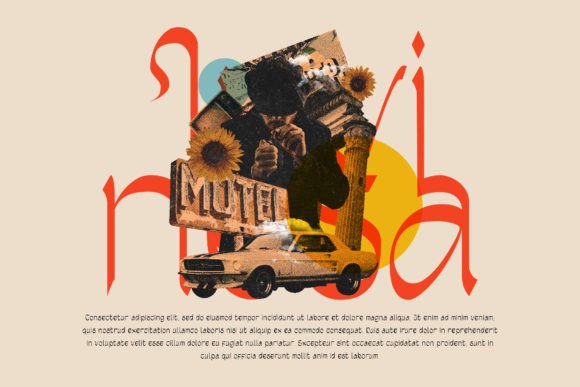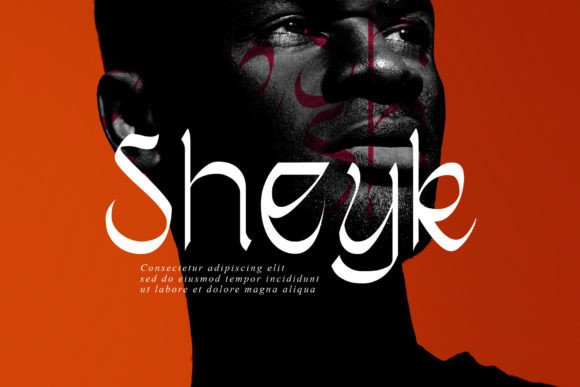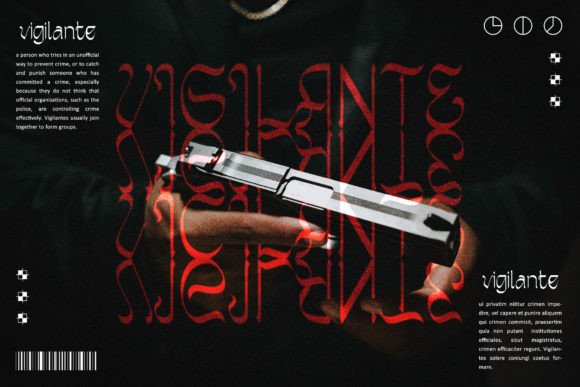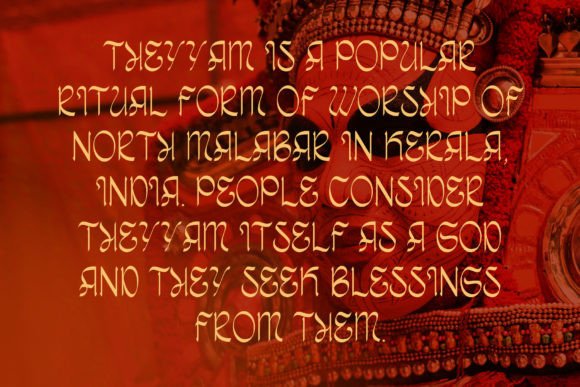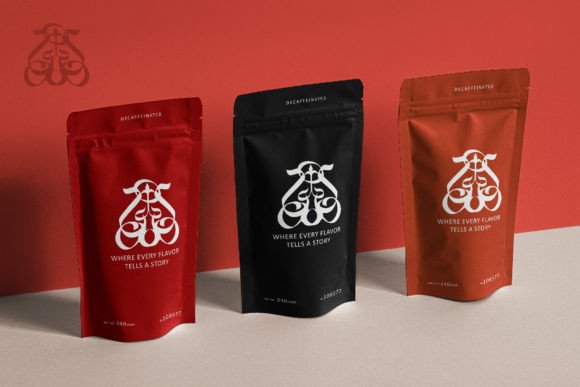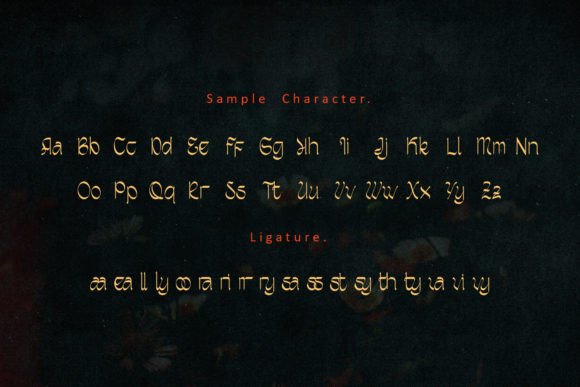
Introduction to Irvinesa Font
Irvinesa is a cool and incredibly interesting display font.
Fall in love with its unique style and use it to create spectacular designs .